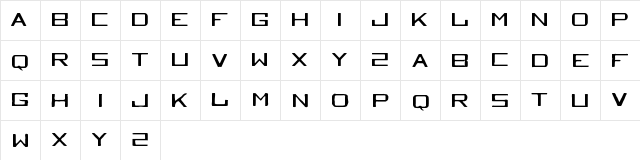
TequilaHeights Regular Font Preview
TequilaHeights Regular
Design Context for TequilaHeights Typeface
TequilaHeights is a composed and adaptable typeface that performs quietly and consistently across a wide range of design contexts.